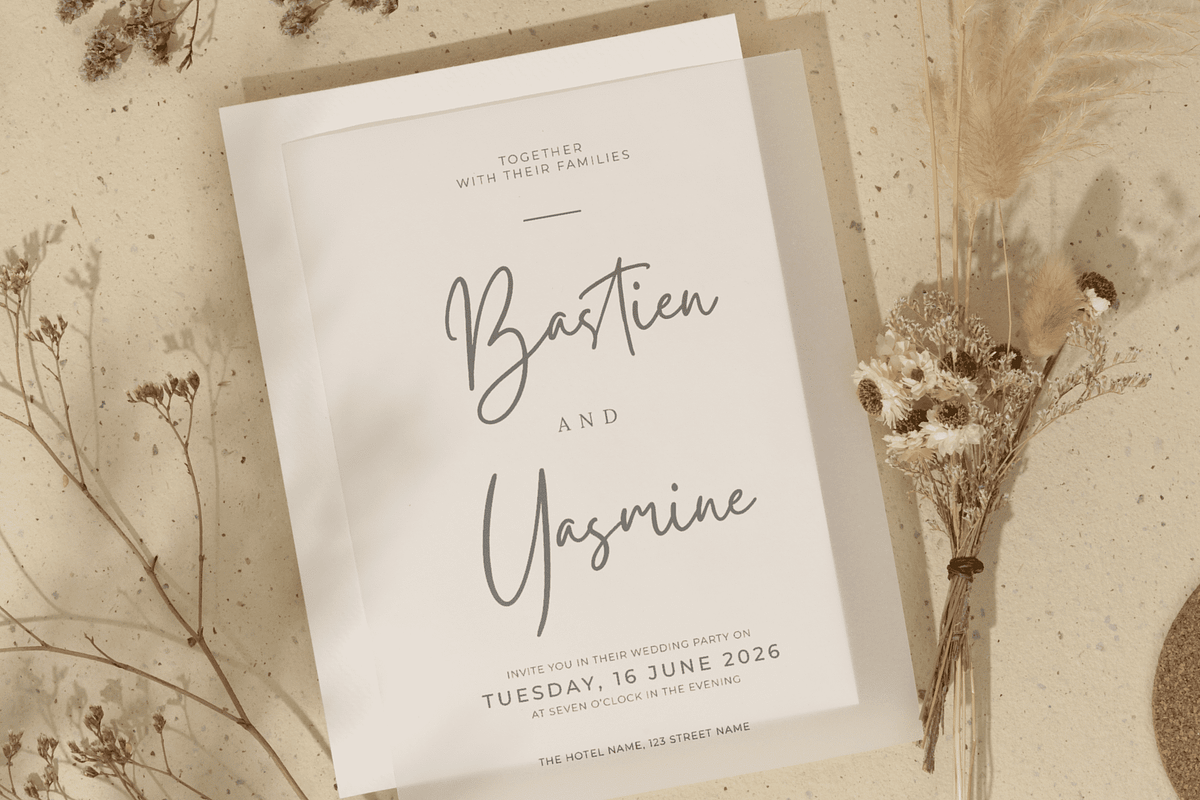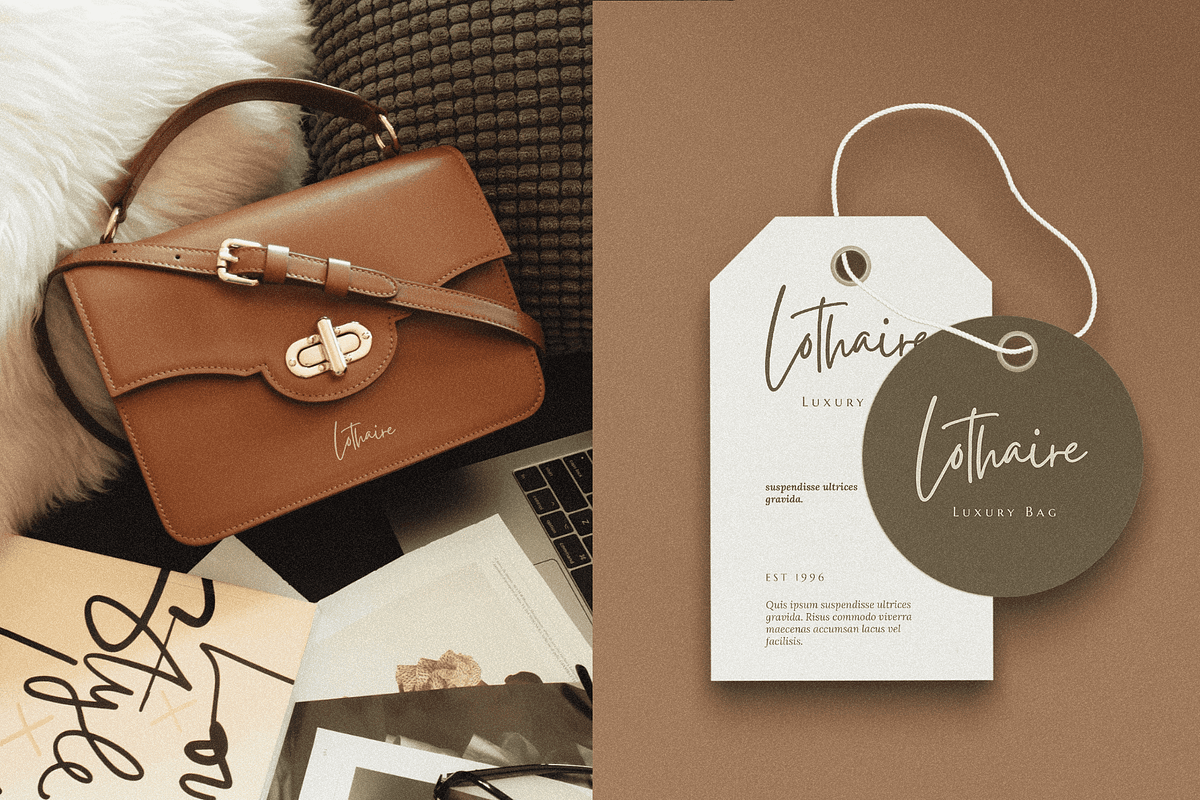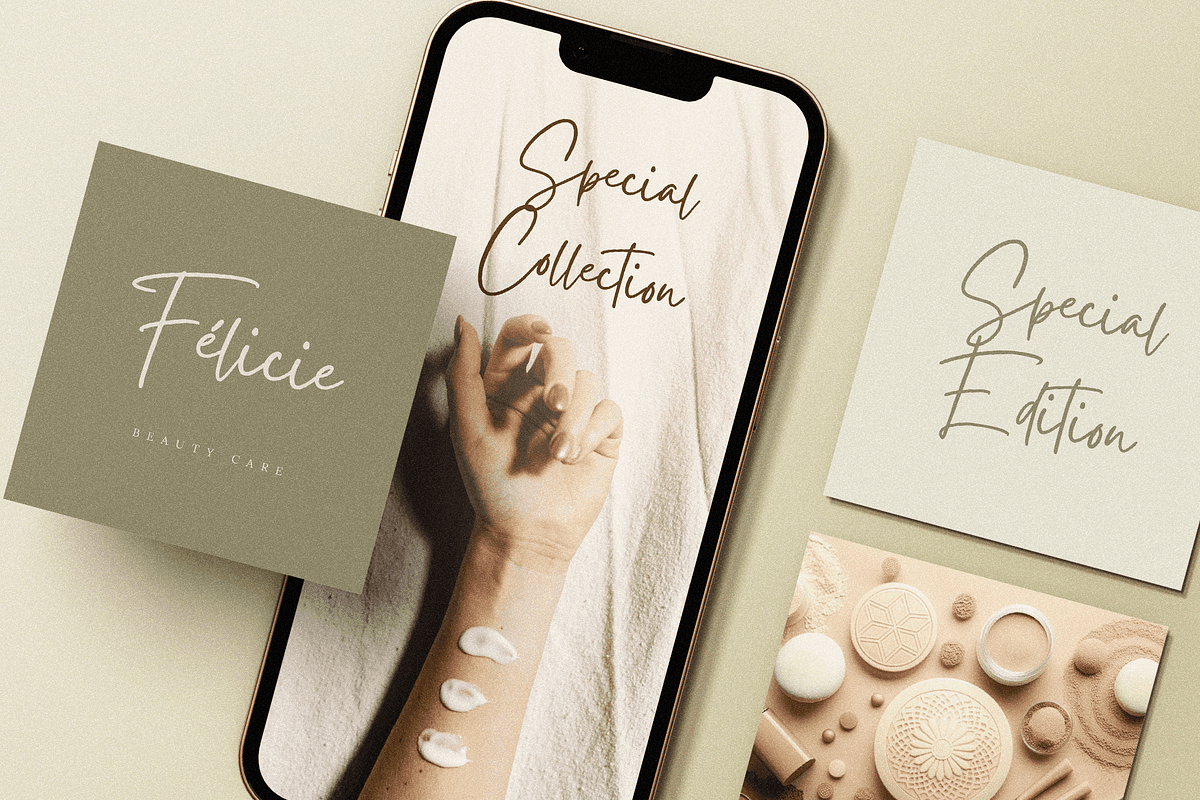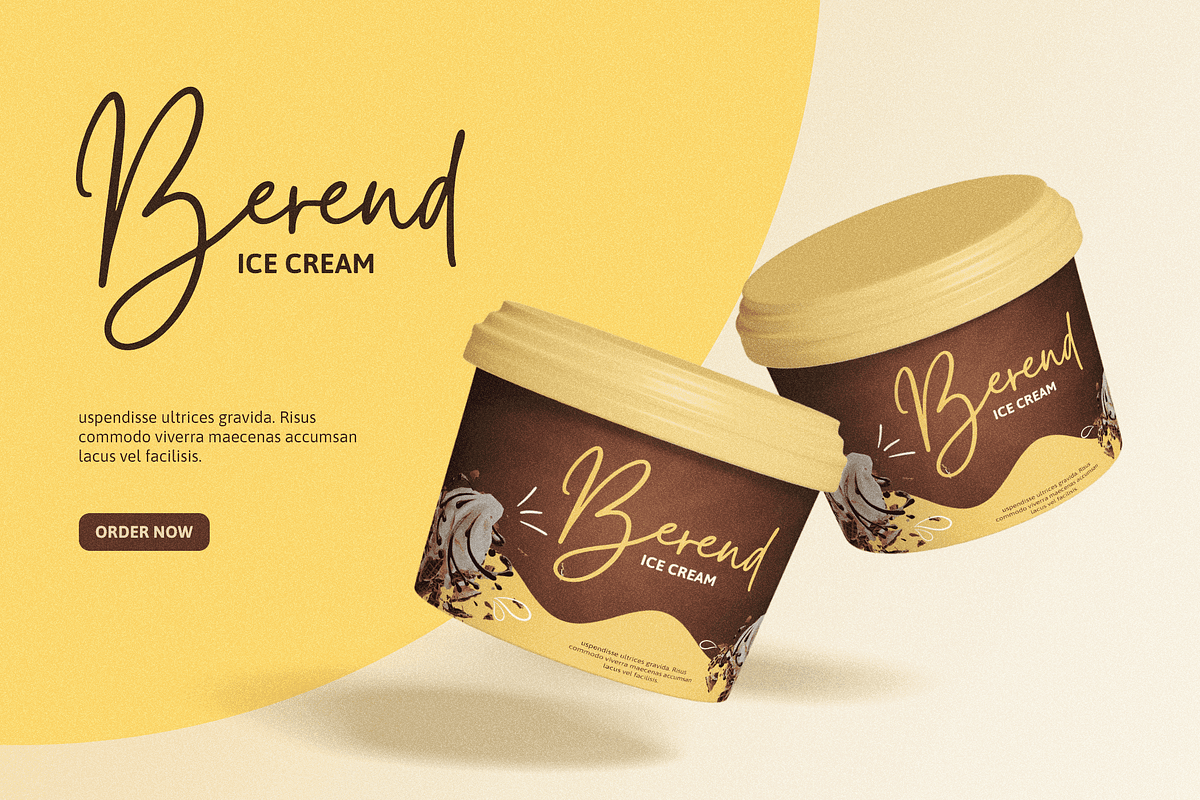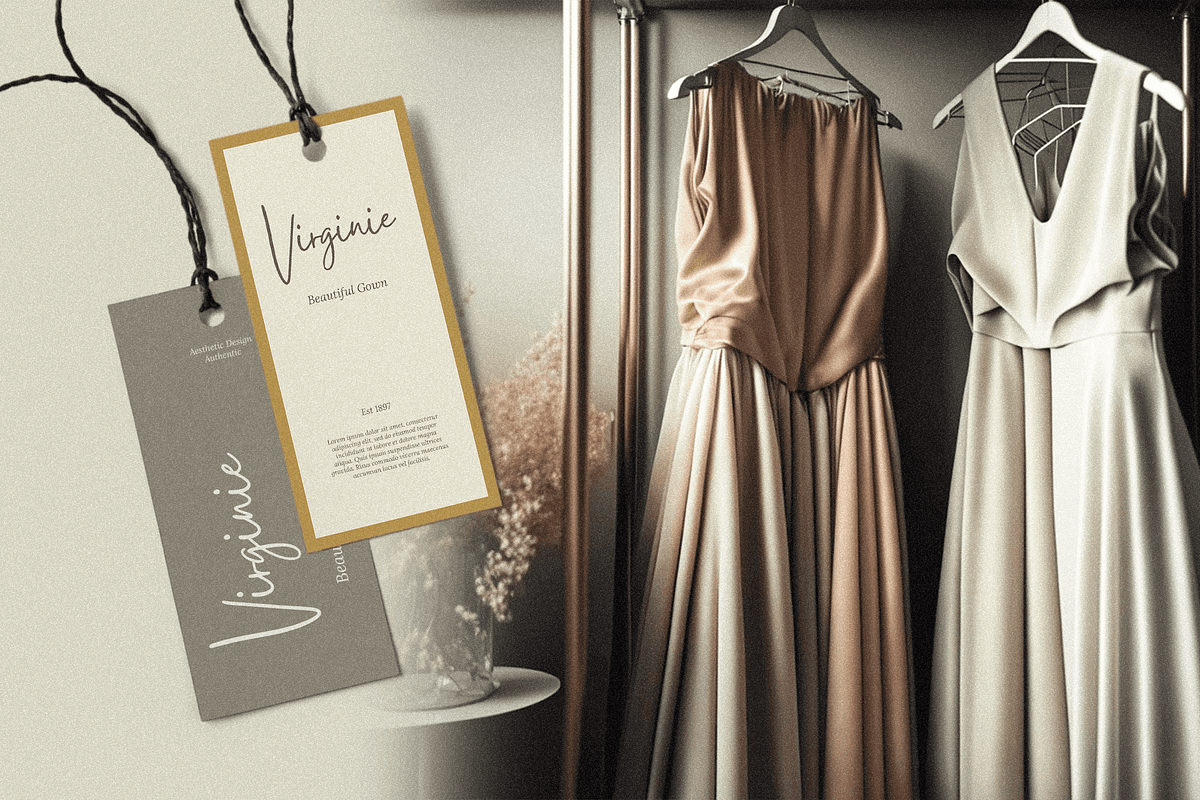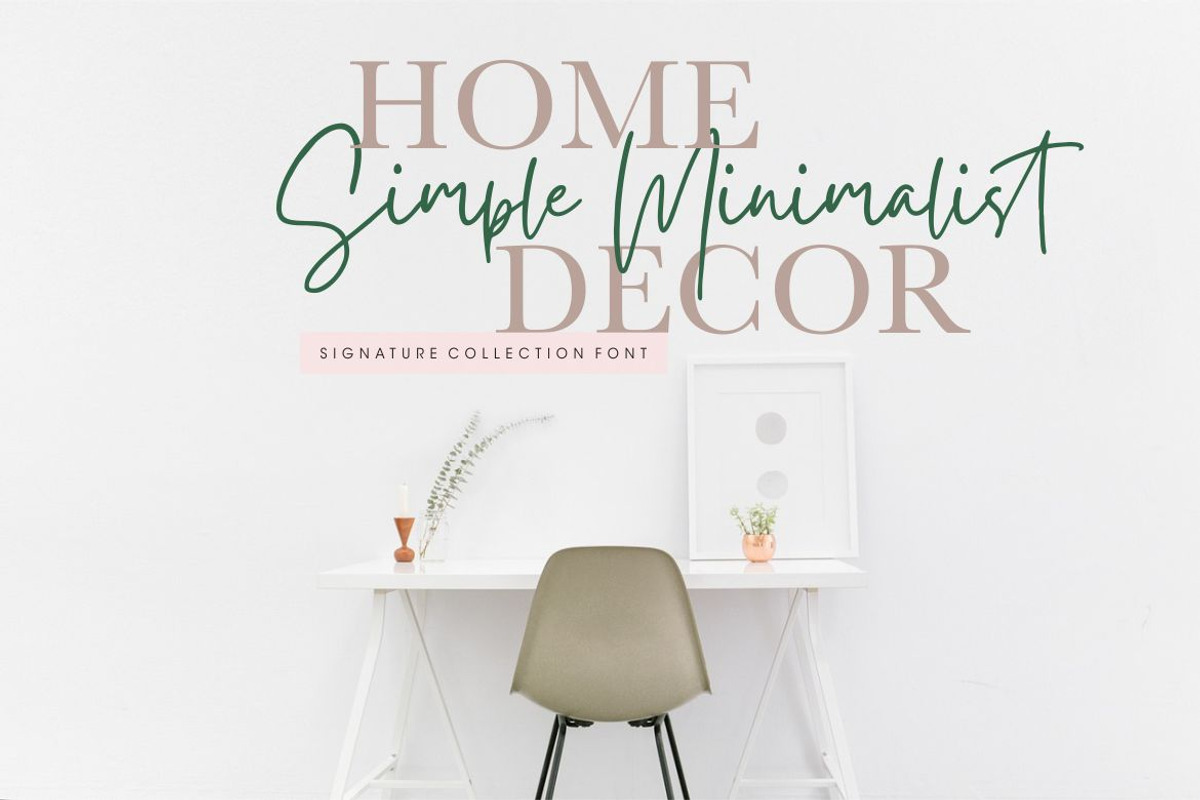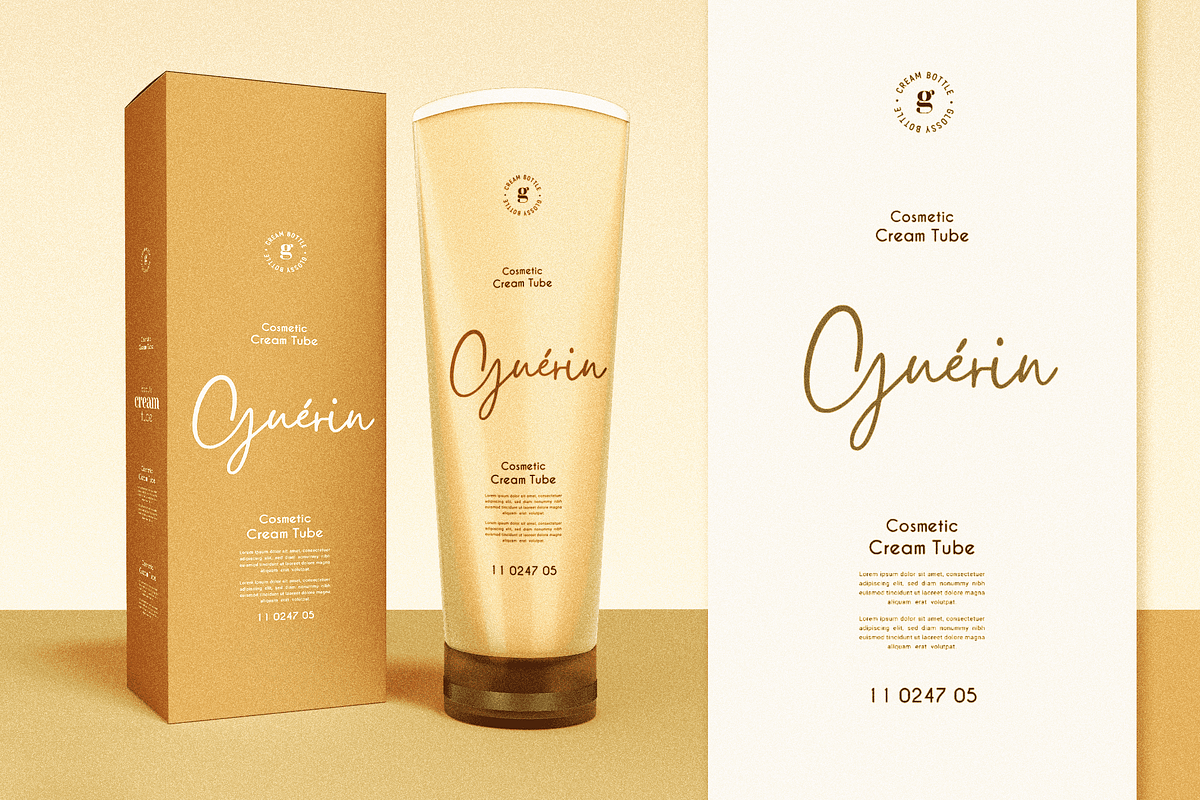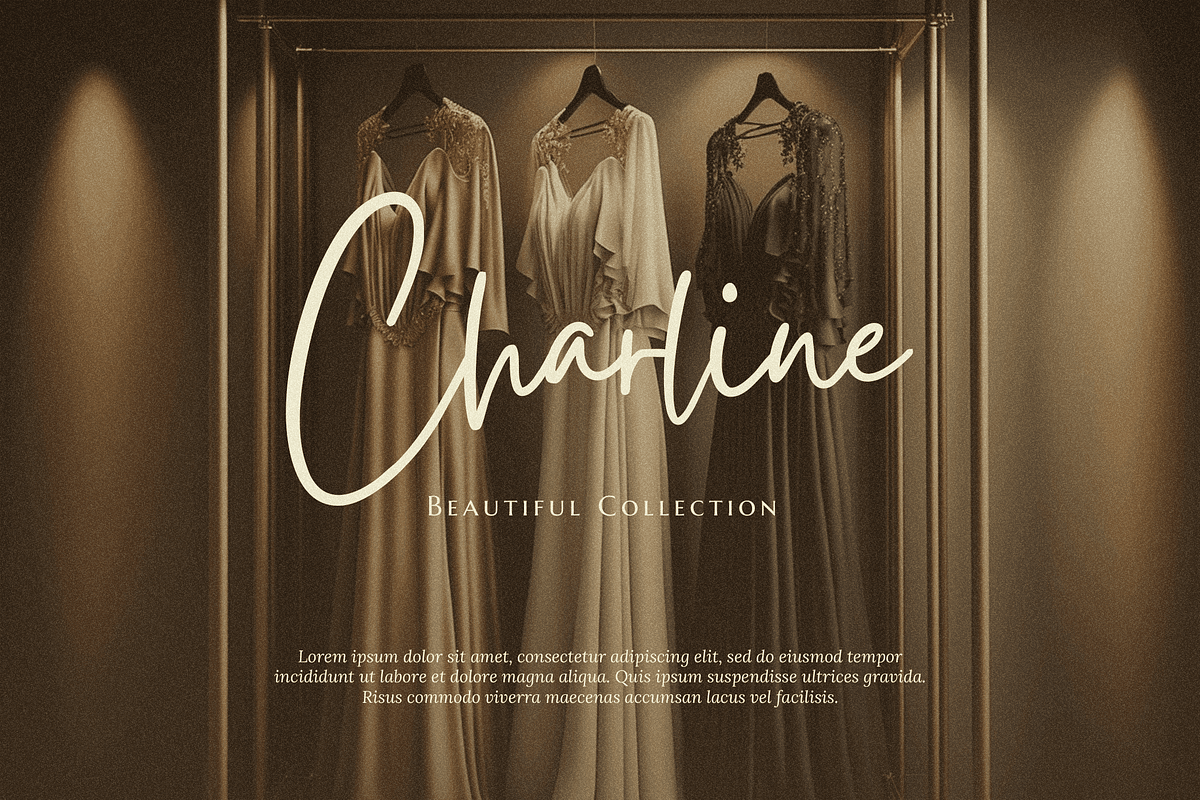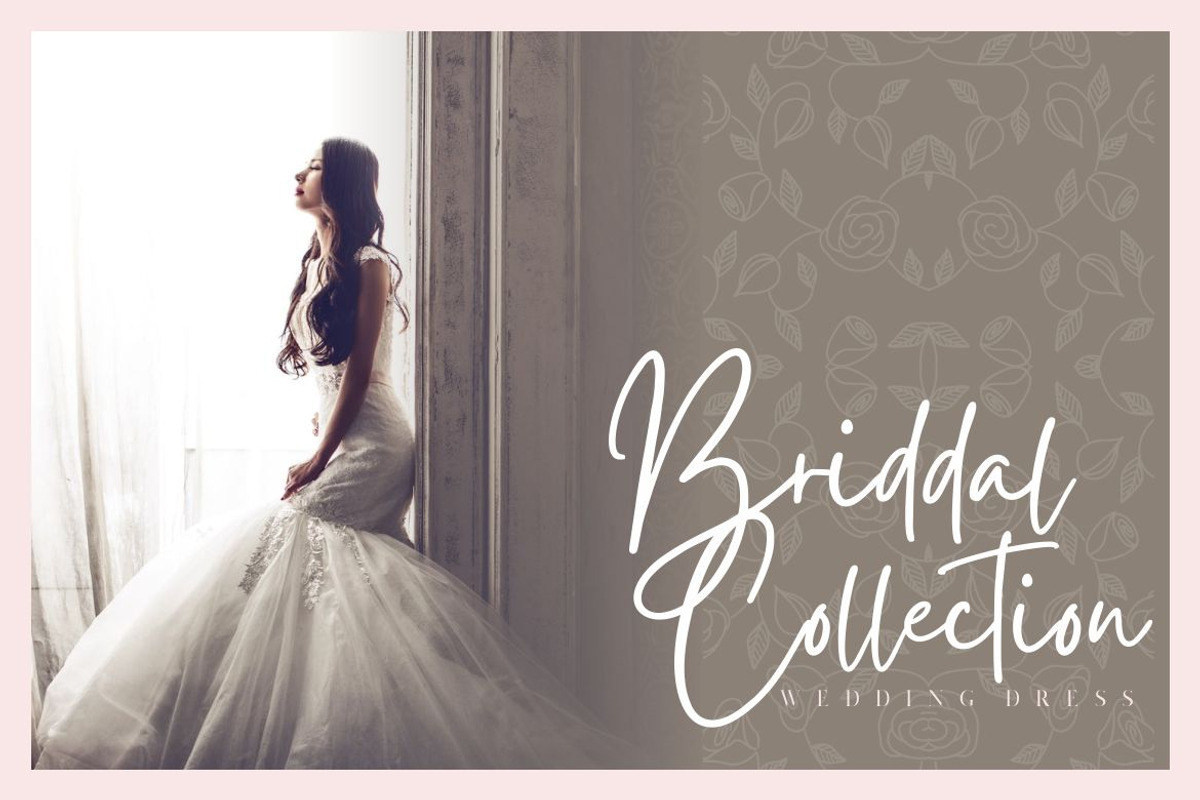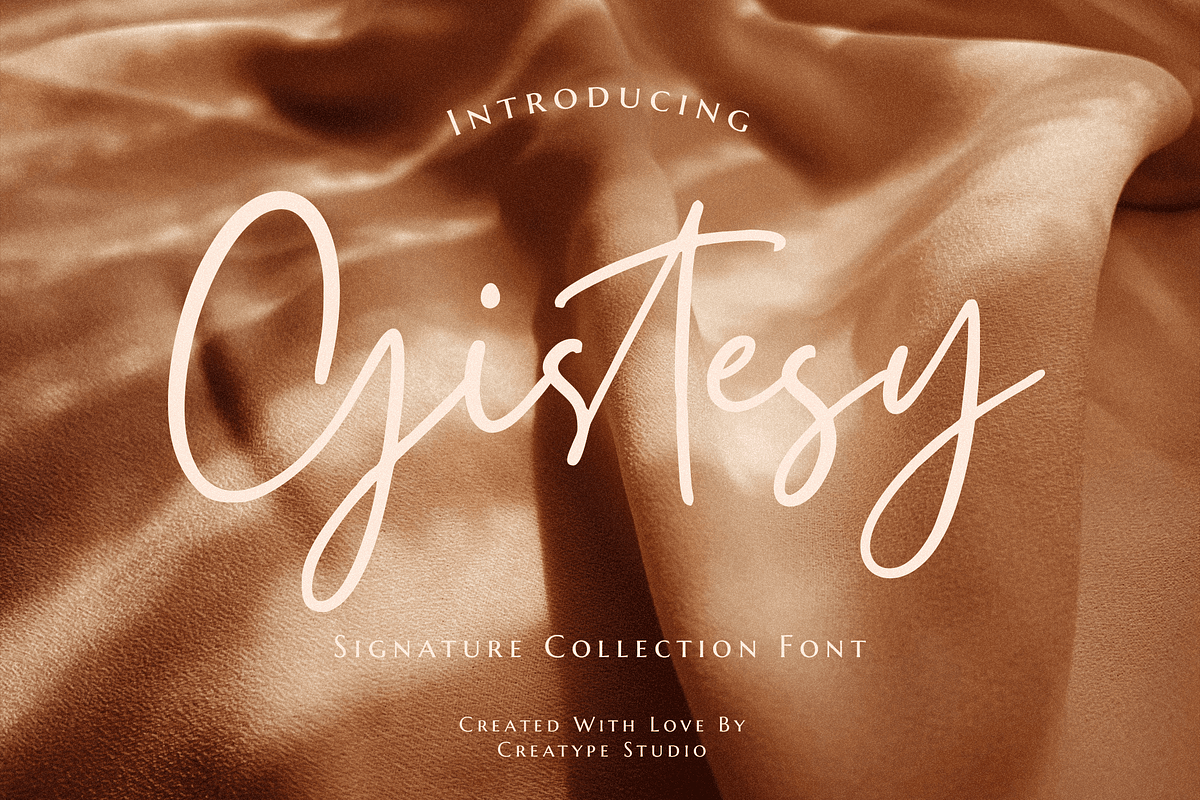
Gistesy is signature collection font with natural movement make looks elegant, classy and beauty for your latest project.
Gistesy is perfect for branding projects, logo, wedding designs, social media posts, advertisements, product packaging, product designs, label, photography, watermark, invitation, stationery and any projects that need handwriting taste.